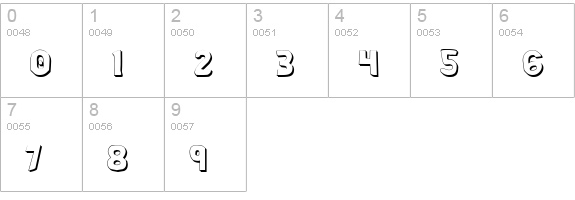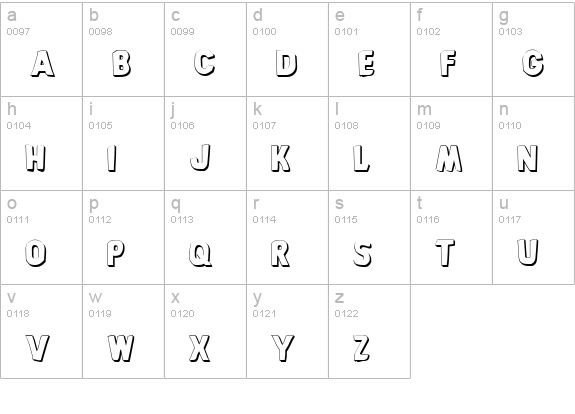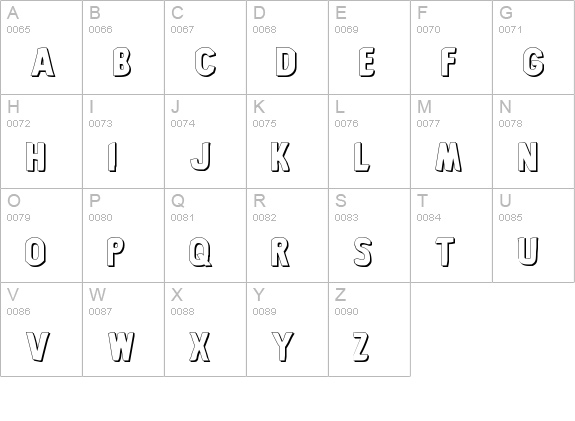
Bronic Shadow Font Details
Introducing Bronic Shadow font, a captivating and versatile typeface that exudes a sense of mystery and sophistication. This unique font features intricate shadow detailing that adds depth and dimension to your designs, making them truly stand out. Bronic Shadow font is perfect for a wide range of design projects, from elegant invitations to eye-catching posters. Its bold and distinctive style is sure to make a lasting impression on your audience. Best of all, Bronic Shadow font is completely free to download at FontsMarket.com. Whether you're a seasoned designer looking to add a new font to your collection or a beginner exploring typography for the first time, this font is a must-have addition to your toolkit. Don't miss out on the opportunity to elevate your designs with the striking beauty of Bronic Shadow font. Download it today and let your creativity soar!